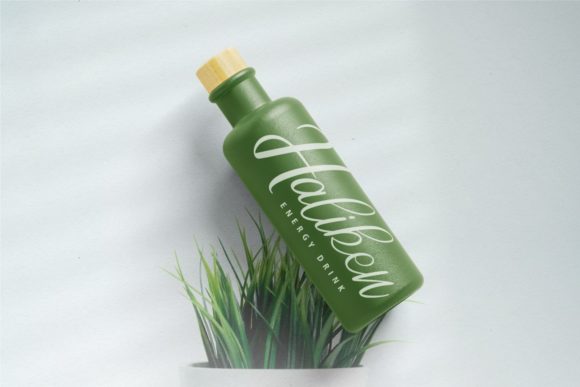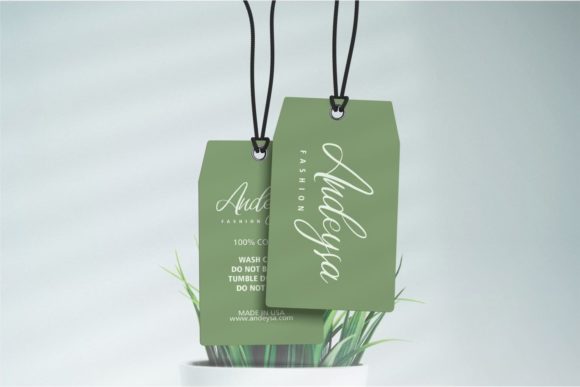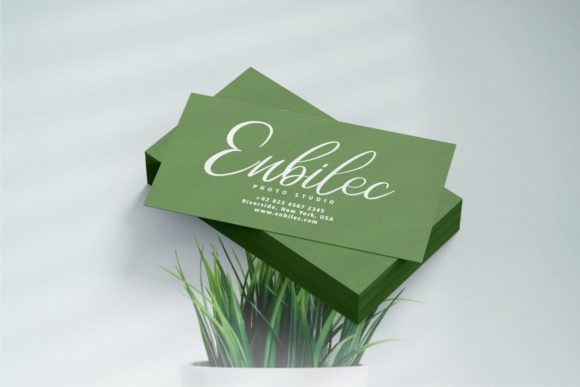
Almondo Font
About Almondo Font
Almondo is a modern script font that flows beautifully to create the most stunning typography. Fall in love with its incredibly unique characters, and use them to create outstanding designs!